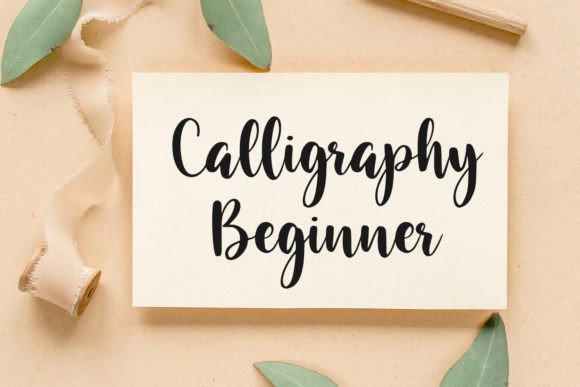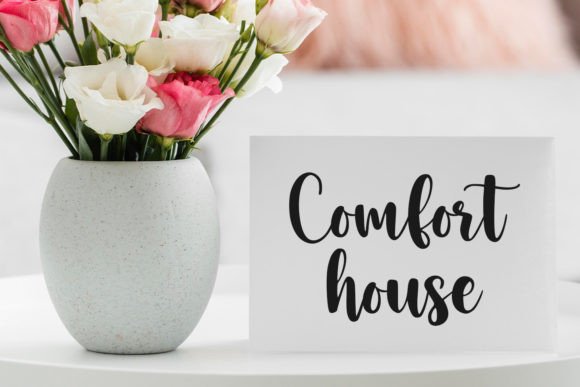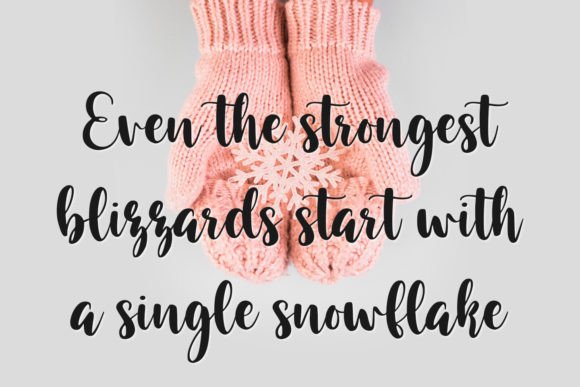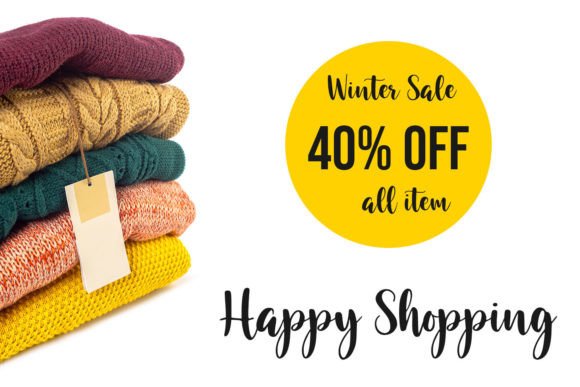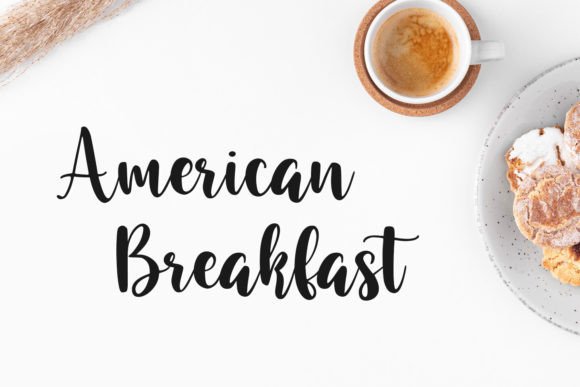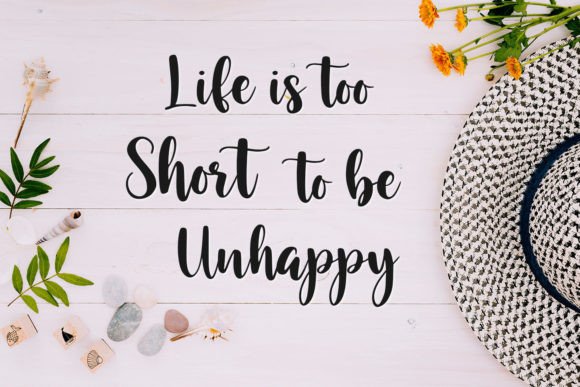
Introduction to Graficia Font
As a designer, have you ever found yourself staring at a blank page, searching for the perfect font to bring your creative project to life? The moment of clarity finally hits when you stumble upon the perfect script font – one that exudes elegance, sophistication, and a touch of whimsy. For many designers, that moment has come with the Graficia Font.
This beautiful script font is a game-changer for designers, offering a versatile design resource that can be used in a variety of creative projects, from branding and logos to social media graphics and tote bag designs. With its high-quality design and transparent background, Graficia Font is perfect for designers who want to add a touch of sophistication to their work.
Key Features of Graficia Font
- Features a unique, modern design with a transparent background, allowing for versatility in use
- Designed to be highly legible and visually appealing in a range of sizes and resolutions, from 24px to 48px at 300 DPI
- Includes a wide range of glyphs and characters, making it suitable for multilingual projects
- Perfect for use in digital design, including web design, graphic design, and UI/UX design
Honest Review: Graficia Font
As a designer, I’m always on the lookout for high-quality design resources to elevate my creative projects. Recently, I stumbled upon the Graficia Font, and I’m excited to share my honest review.
- ✨ Beautiful, modern design that’s perfect for creative projects
- ✨ High-quality vector format for crisp and clear rendering
- ✨ Transparent background, allowing for seamless integration into any design
- ⚠️ Limited character set, which may not be suitable for long-form text
- ⚠️ May require some adjustments for optimal display on certain devices
Overall, I’m impressed with the Graficia Font’s modern design and high-quality rendering. While it may have some limitations, it’s still a valuable addition to any design resource library. If you’re looking for a stylish font for your creative project, I’d definitely recommend giving Graficia a try – especially since it’s free to download!
Graficia Font
Graficia Font is a versatile and high-quality design resource ideal for creative projects. This free download offers a transparent background, making it easy to integrate into various design platforms.
Tips for Getting the Most Out of Graficia Font
To get the most out of Graficia Font, experiment with different font sizes, styles, and combinations. You can also use the font in conjunction with other design elements to create visually appealing designs.
Graficia Font is commonly used in creative projects such as logo design, branding, and typography-based designs. Its transparent background and high-quality design make it an ideal choice for designers looking for a versatile font resource.
Yes, the Graficia Font is designed to work seamlessly with transparent backgrounds, making it ideal for creating visually appealing designs with a sense of depth and dimension. You can use the font with a transparent background in various design applications, including Adobe Photoshop and Illustrator.